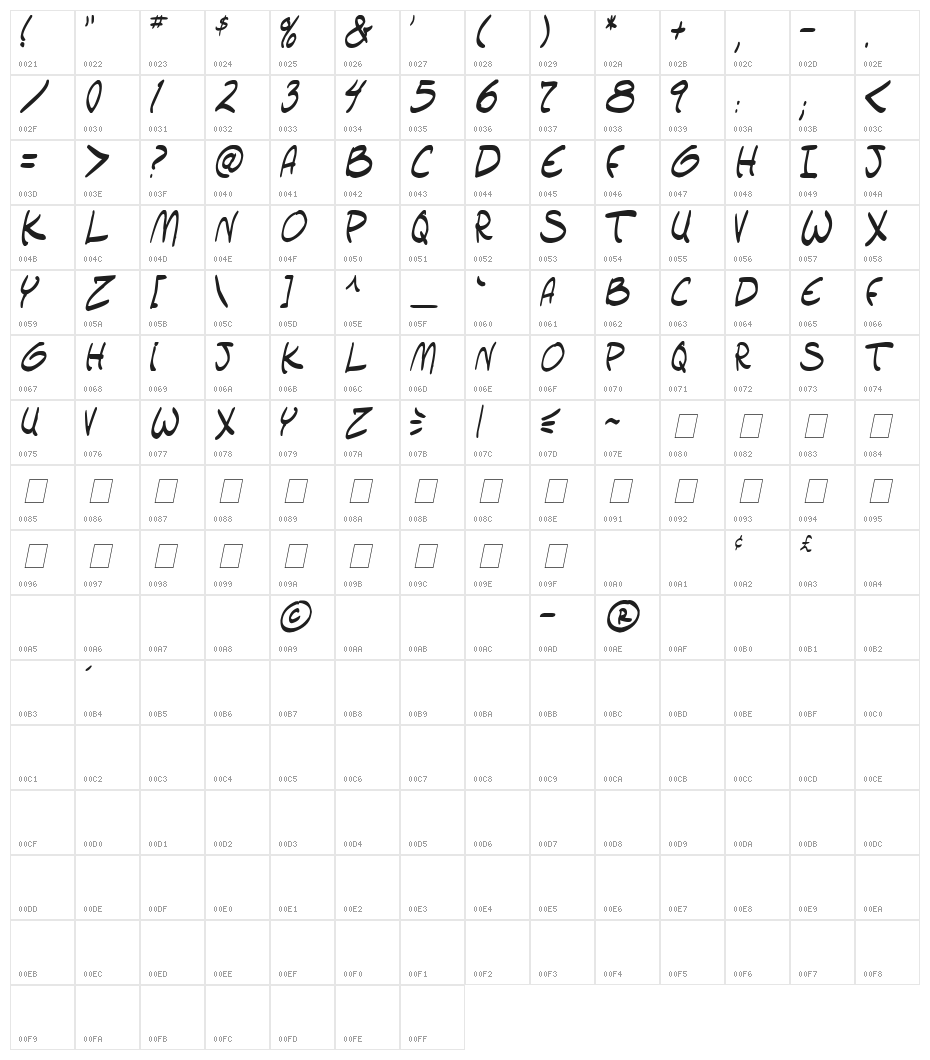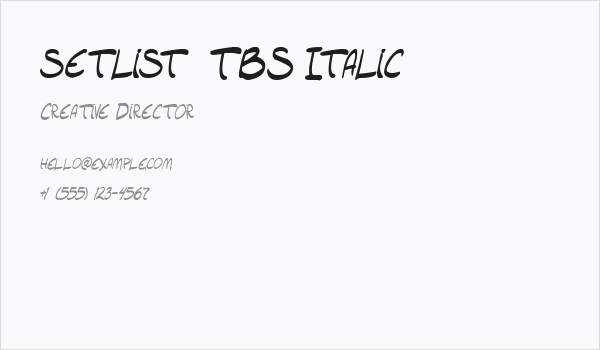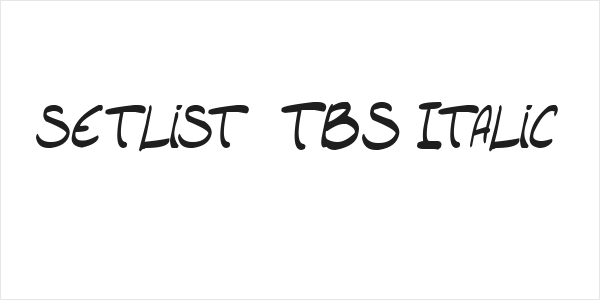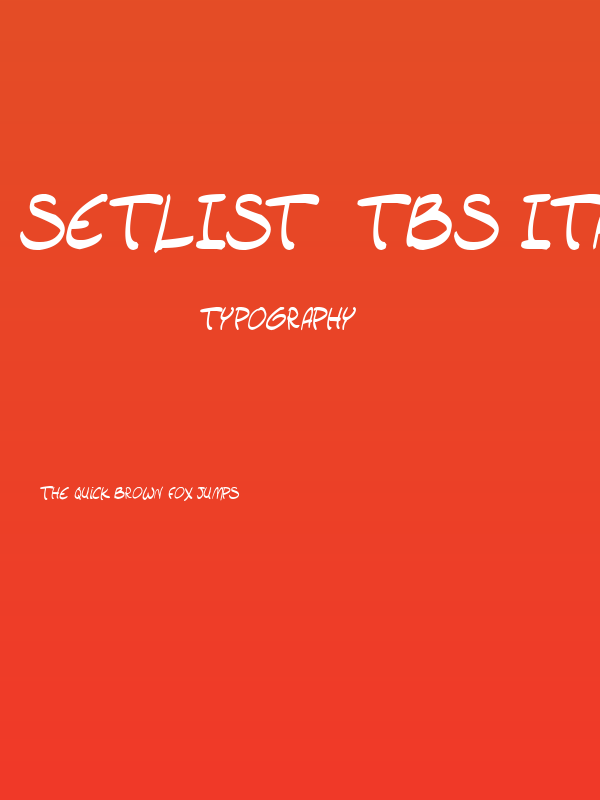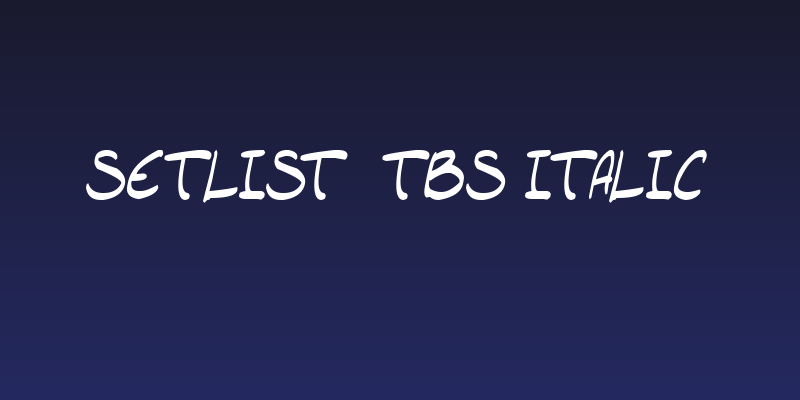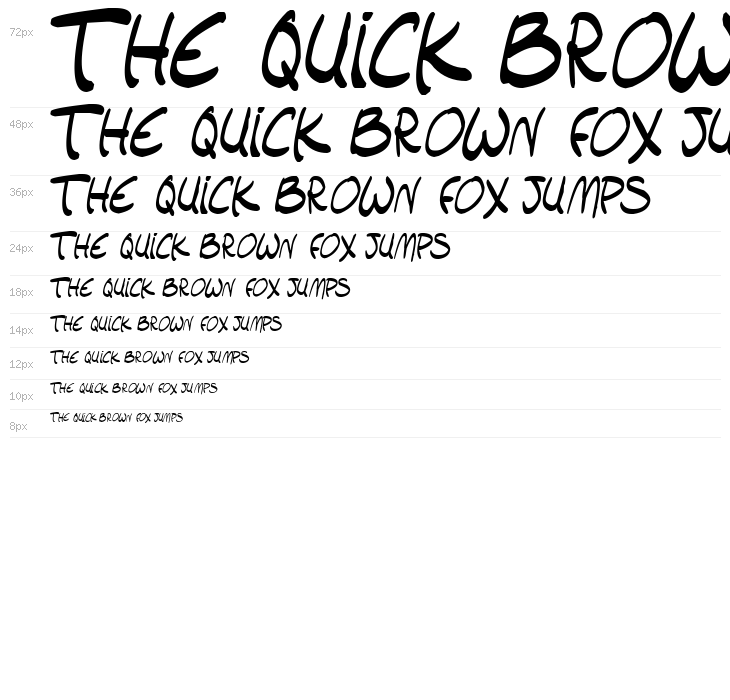
setlist TBS Italic Font
setlist TBS Italic Description
This font features a dynamic and energetic style with a handwritten, italicized appearance. The letters are bold and slightly slanted, giving a sense of motion and fluidity. The strokes are thick and consistent, with rounded edges that soften the overall look. The uppercase and lowercase letters maintain a cohesive style, while the numerals and special characters complement the alphabet with similar boldness and curvature. This font exudes a playful yet assertive personality, making it suitable for creative and expressive design projects.
| Proposed Projects | Ideal for branding, posters, greeting cards, and any project requiring a lively and personal touch. |